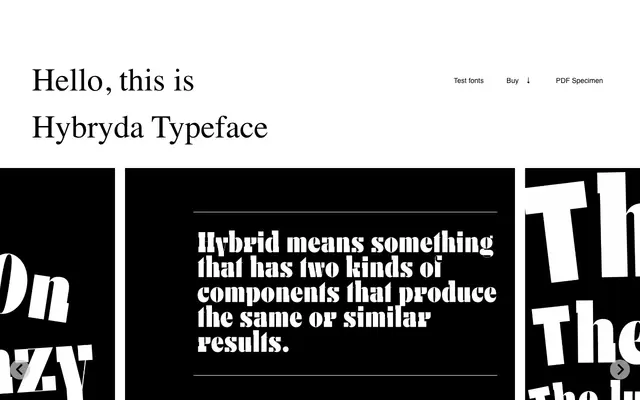
Hybryda
Laïc · Maciej Połczyński
A single-weight high-contrast headline face that merges sans-serif and slab serif structures into one hybrid form, with strong Polish language support.
Designed by Maciej Połczyński, Hybryda takes its name from the Polish word for hybrid, reflecting its core concept of blending sans and slab serif letterforms under one high-contrast design. The family ships as a single style with a full Polish character set, a set of f-ligatures and tt ligature, and five stylistic sets offering alternate forms for key uppercase and lowercase characters. Best suited to editorial headlines, poster work or branding where a retro tension between structure and stroke contrast is wanted.
A high-contrast headline typeface that blends sans-serif and slab serif letterforms into a single hybrid design, placing it firmly in the display category with no clear single-genre classification.